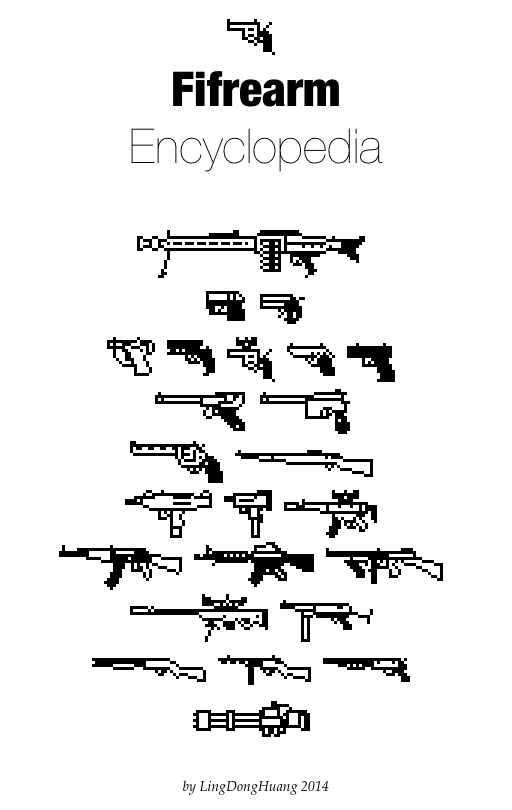
A collection of firearms made with pixels. For some characters, each of them contains a part of a gun. Type the characters in alphabetical order to assemble the gun. You can also create customized guns by combining parts from different firearms. Game developers may find this font handy. |